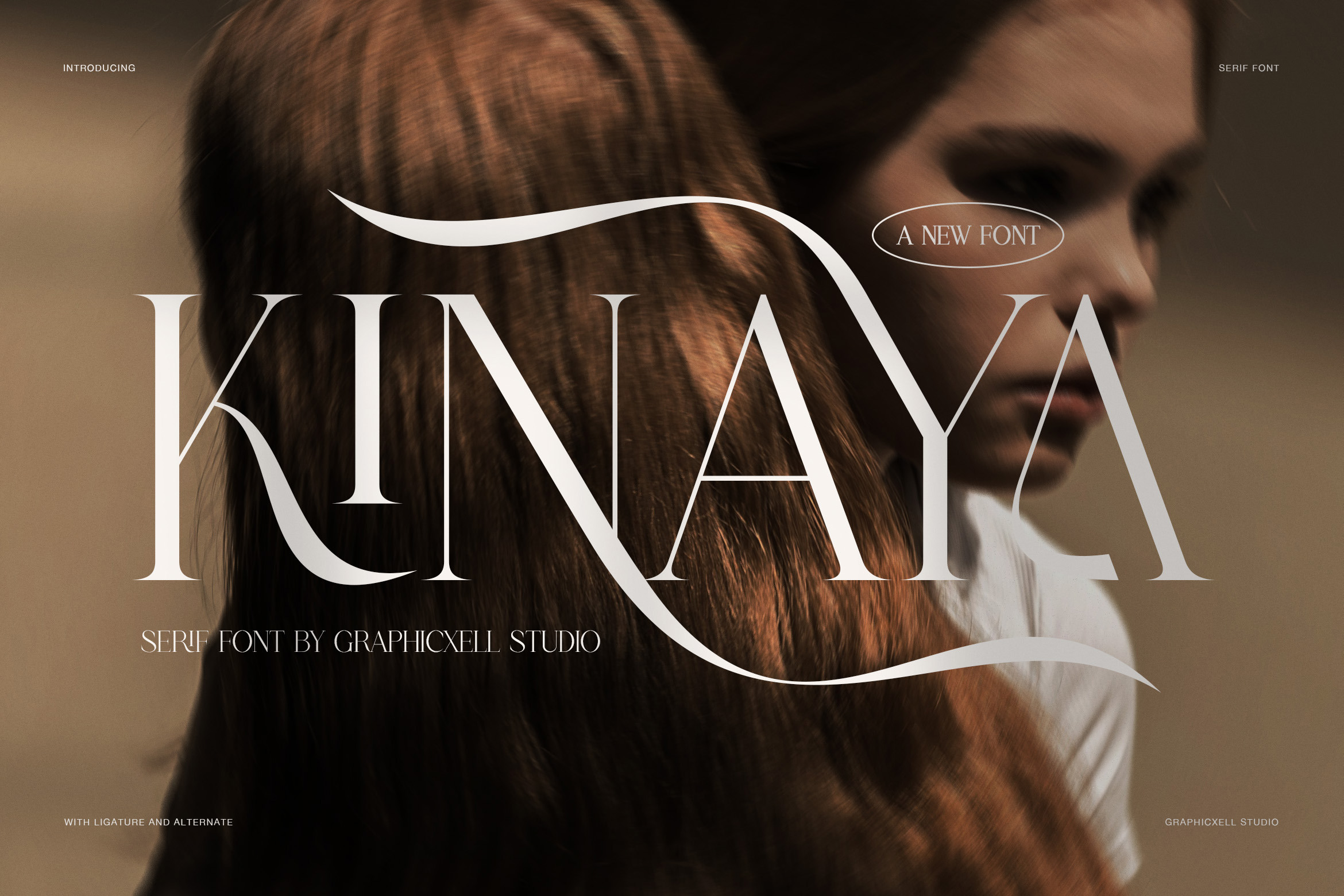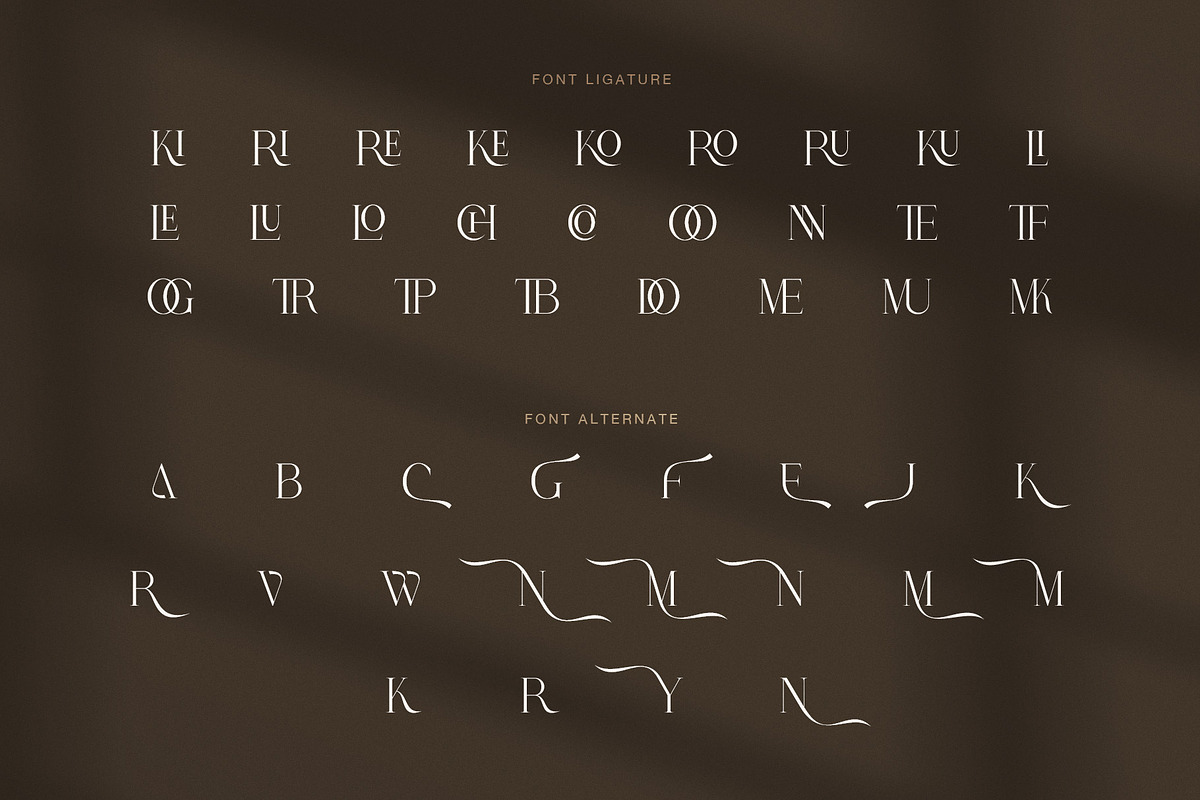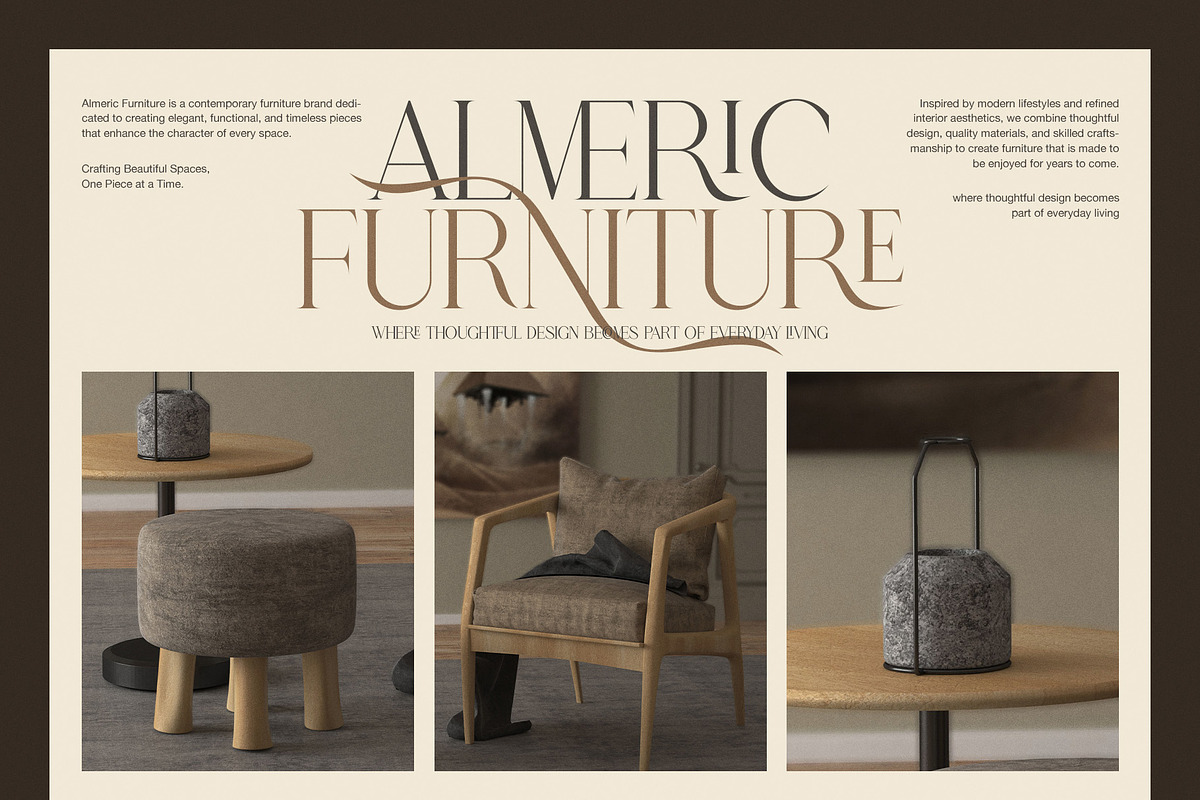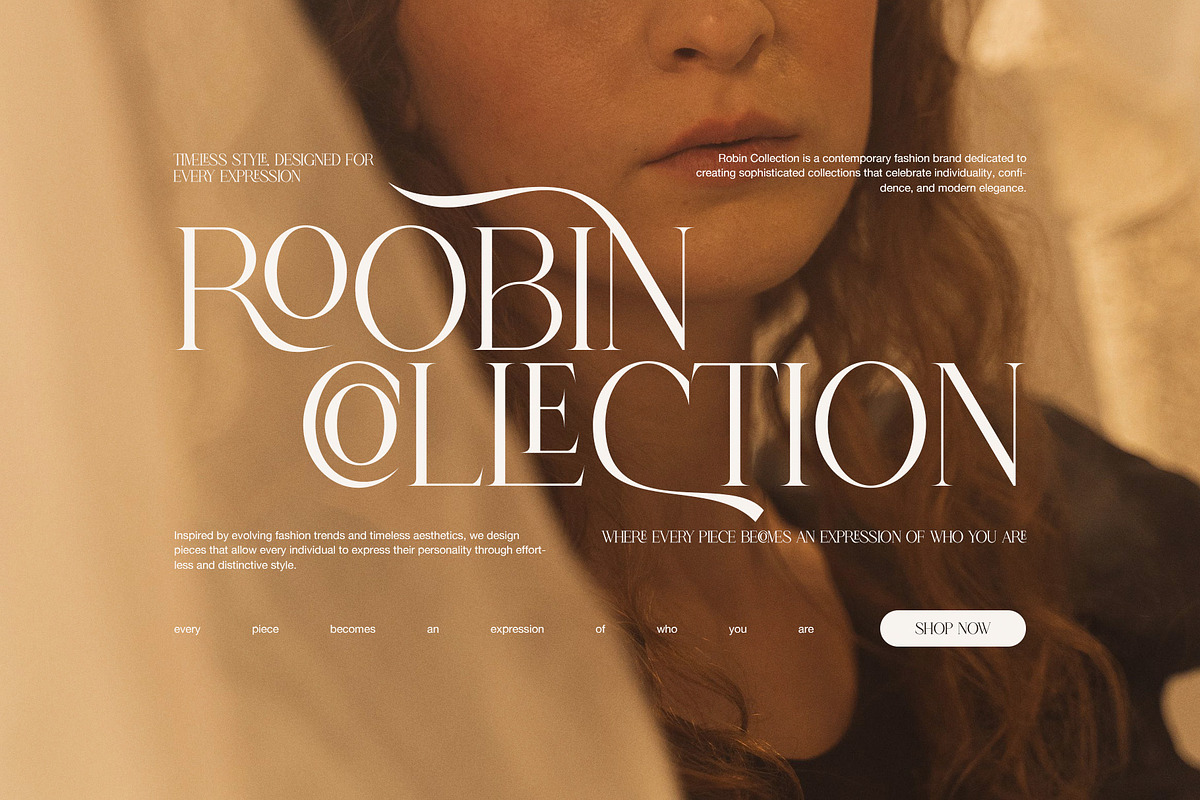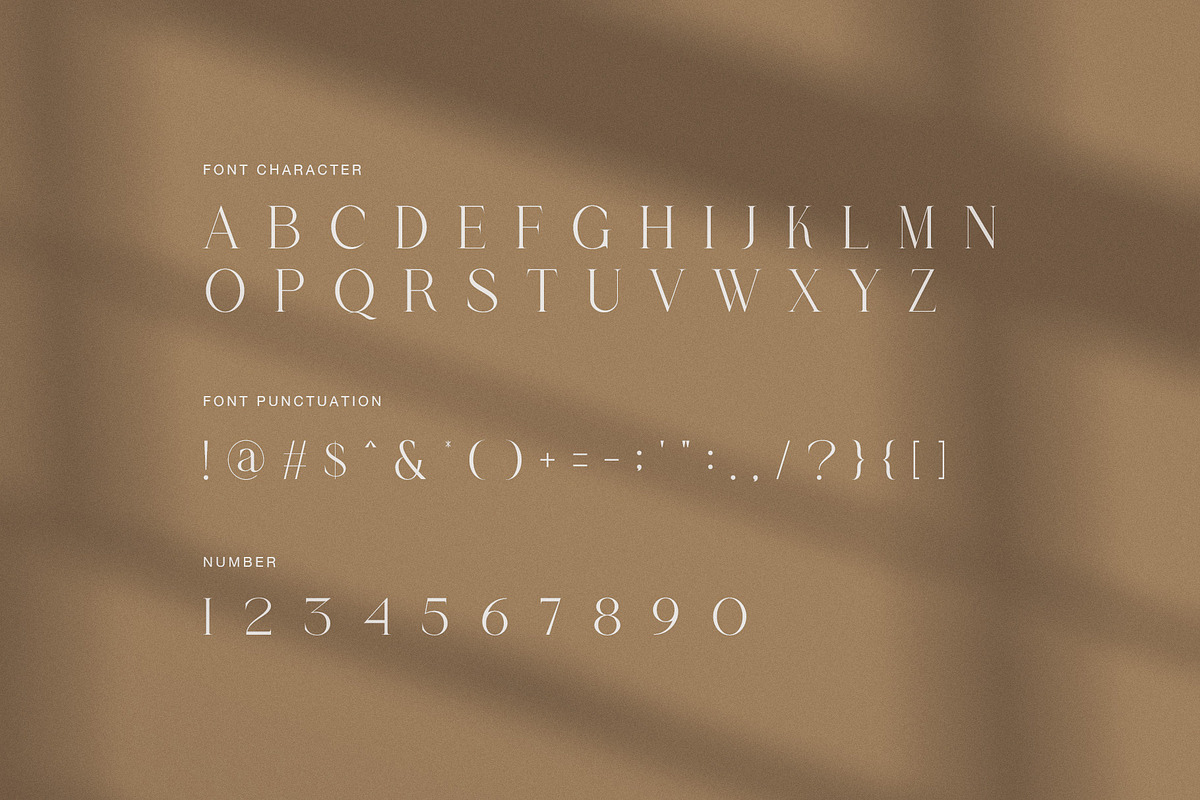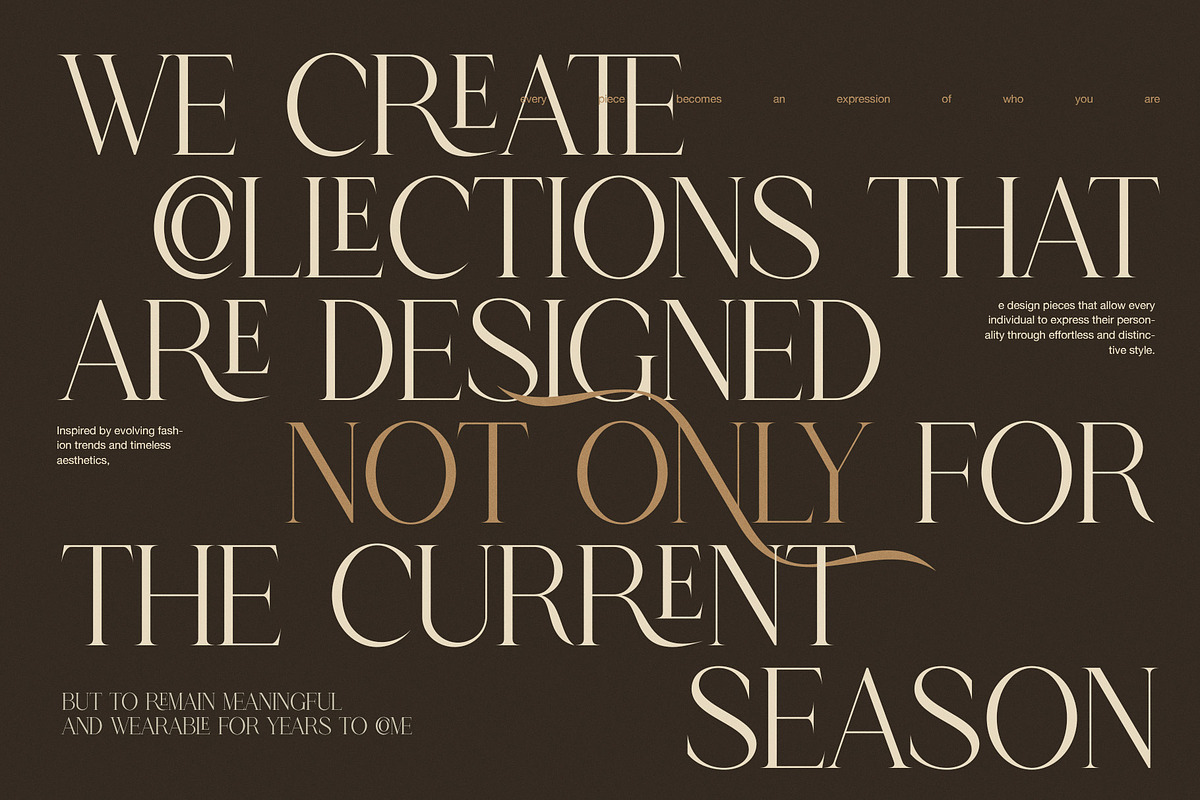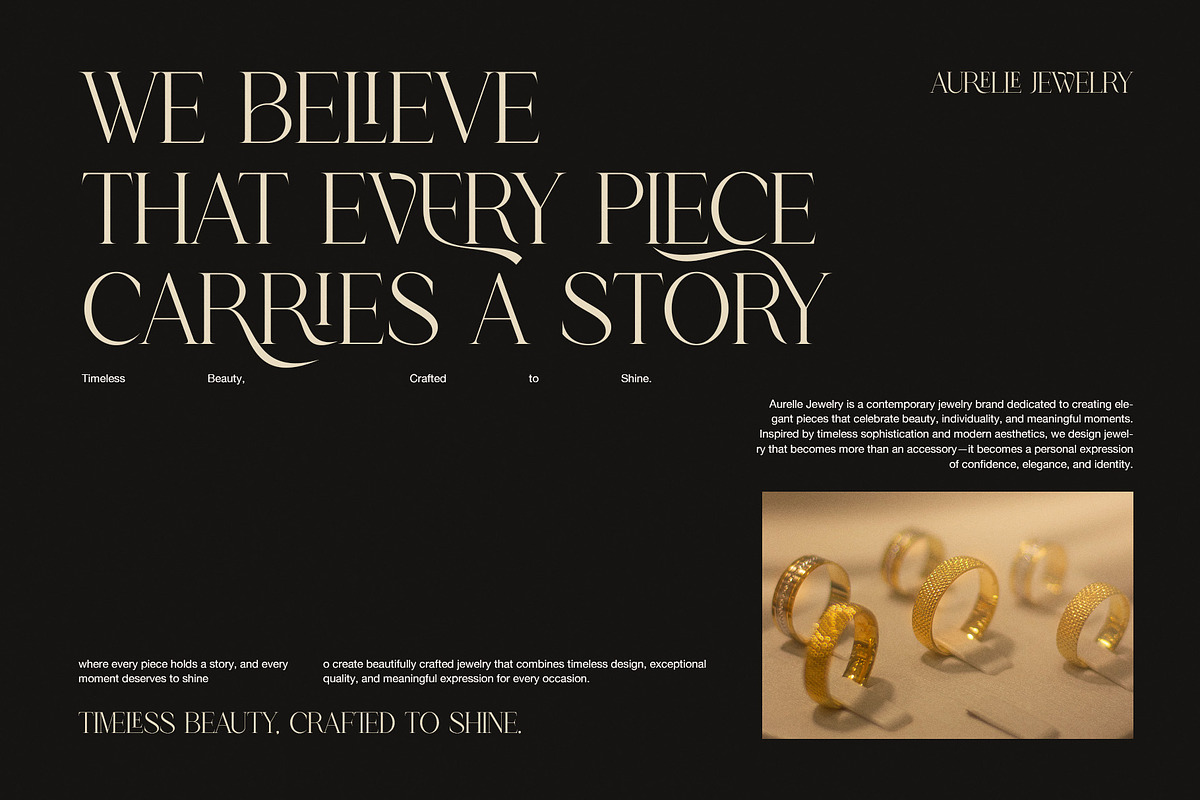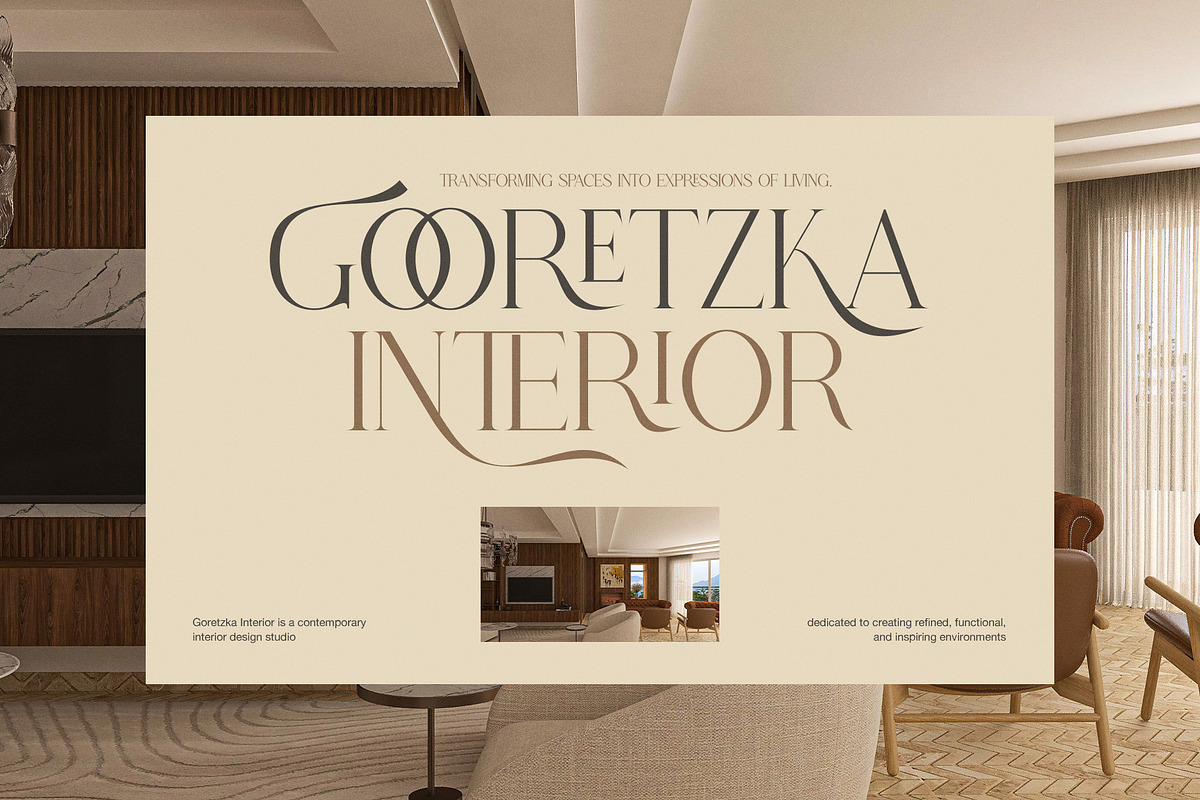
Kinaya Elegant Fashion Serif Font
KINAYA is an elegant fashion serif font created for stylish brands, refined layouts, and modern luxury designs. With its high contrast strokes, fine hairlines, and graceful curves, KINAYA brings a polished look to every project. It is especially suited to designers who want classic serif forms with a fresh and expressive edge.
The typeface has a tall and slender structure that gives headlines a clean, premium feel. At the same time, its sharp details and soft curves create a beautiful balance between strength and elegance. Therefore, KINAYA works especially well when typography needs to become the main visual element.
KINAYA is a strong choice for fashion branding, luxury logos, beauty packaging, jewelry brands, editorial layouts, wedding designs, and premium product identity. Moreover, its dramatic uppercase letters can create eye-catching titles for magazines, campaigns, posters, websites, and social media graphics.
A key part of the font is its collection of ligatures. These special letter combinations add extra character to words and help create a more custom look. In addition, KINAYA includes alternate characters with extended curves and decorative swashes. As a result, designers can replace selected letters and create more personal logo designs, names, titles, and brand marks.
KINAYA works beautifully for:
Fashion and clothing brands
Luxury logo design
Jewelry and accessories
Beauty and skincare branding
Editorial and magazine design
Wedding invitations
Boutique identity
Premium packaging
Photography branding
Social media campaigns
Posters and advertisements
Modern lifestyle brands
Furthermore, KINAYA includes uppercase letters, numbers, punctuation, ligatures, and alternate characters. Its display-focused design makes it ideal for large text, while a simple sans serif can be paired with it for supporting copy.
Because of its elegant proportions, KINAYA performs best with generous spacing and clean layouts. Dark backgrounds, warm neutrals, soft beige tones, and minimal compositions can also highlight its luxury character.
Overall, KINAYA combines high contrast serif typography, decorative alternates, elegant swashes, and stylish ligatures in one expressive typeface. Whether you are creating a fashion logo, luxury brand identity, editorial headline, or elegant invitation, KINAYA gives your design a polished and memorable finish.